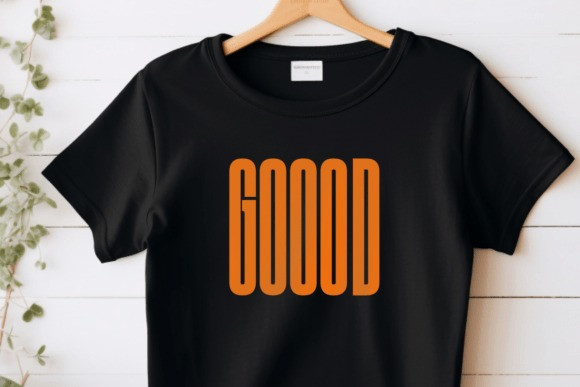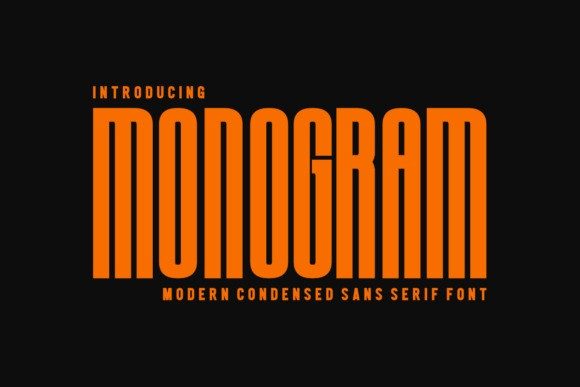
Monogram Condensed Font
Monogram Condensed Font is a modern, condensed sans-serif font with a stunning, fancy feel. It’s perfect for logos, t-shirts, mugs, invitations, greeting cards, branding, posters, packaging, signs, cutting boards, printables, crafting, and other designs.
Whatever your creative needs are, Monogram is the perfect choice for a modern yet simple design!